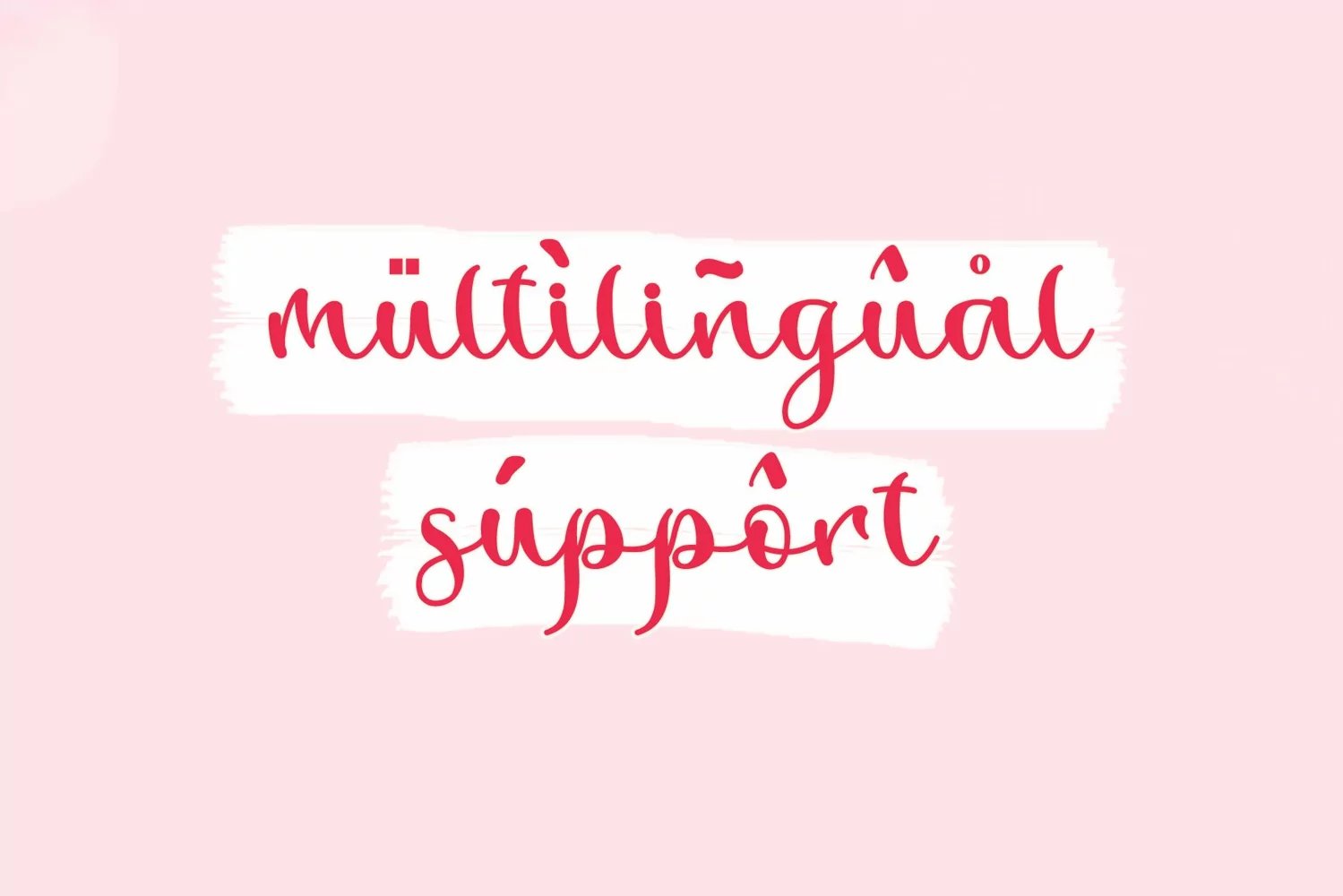
Ladysta - Modern Calligraphy
LADYSTA
Ladysta is a Calligraphy Script font by Letterafa Studio. It has flowing letters that will give your designs a unique and sweet look. Ladysta font is perfect; logos, greeting cards, a package design, a brand identity, craft design, any DIY project, book title, wedding invitation, packaging, and more.